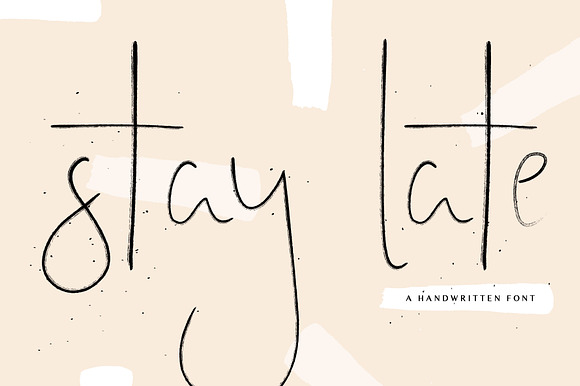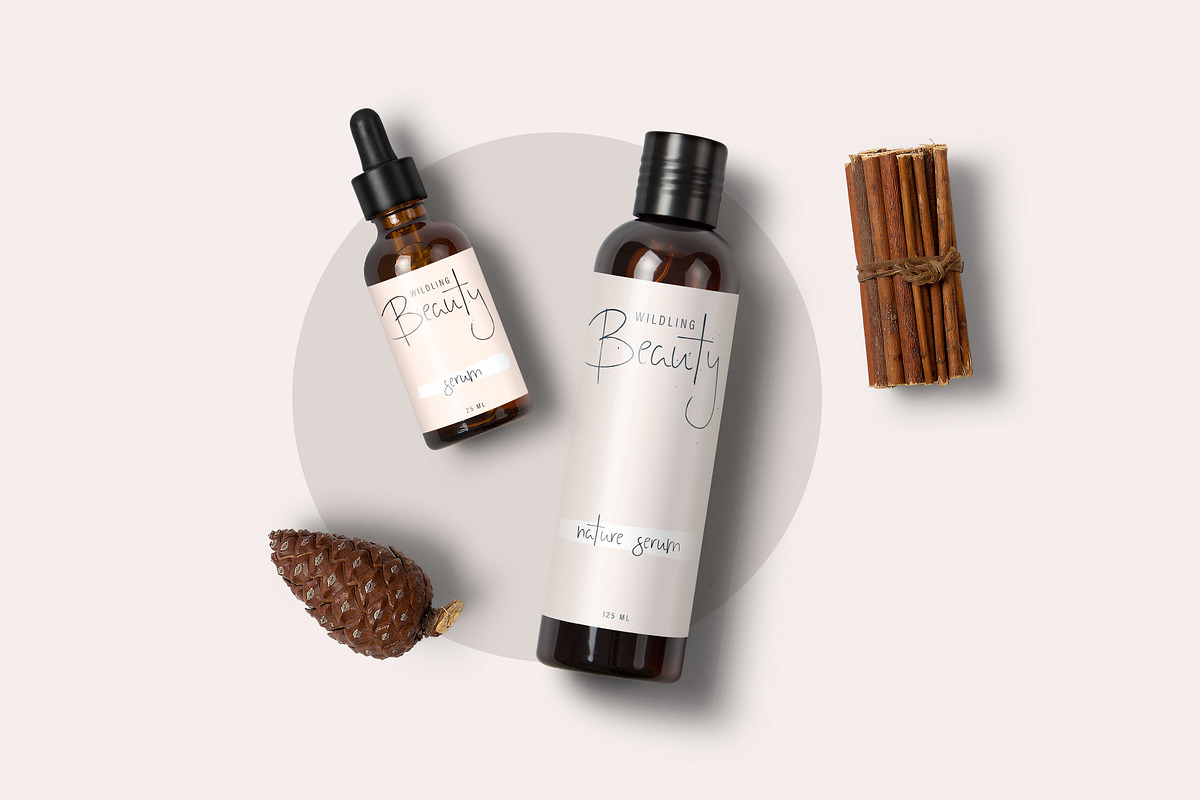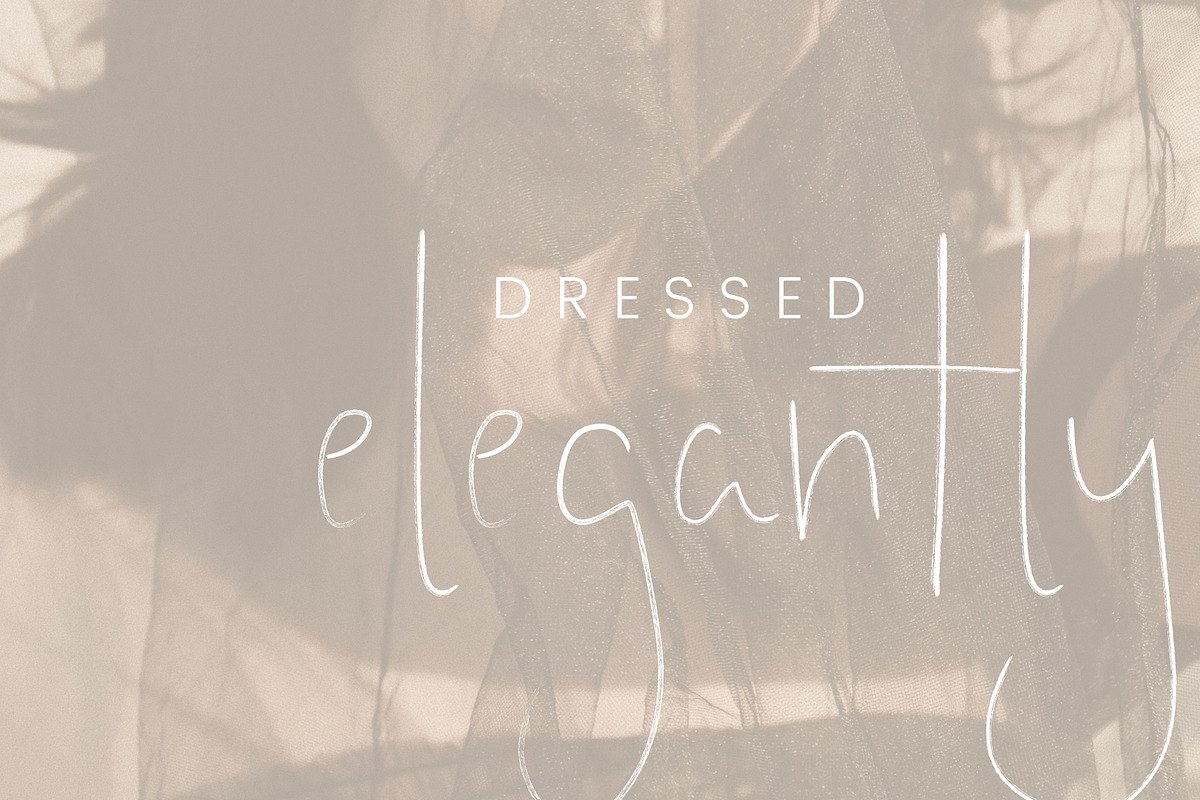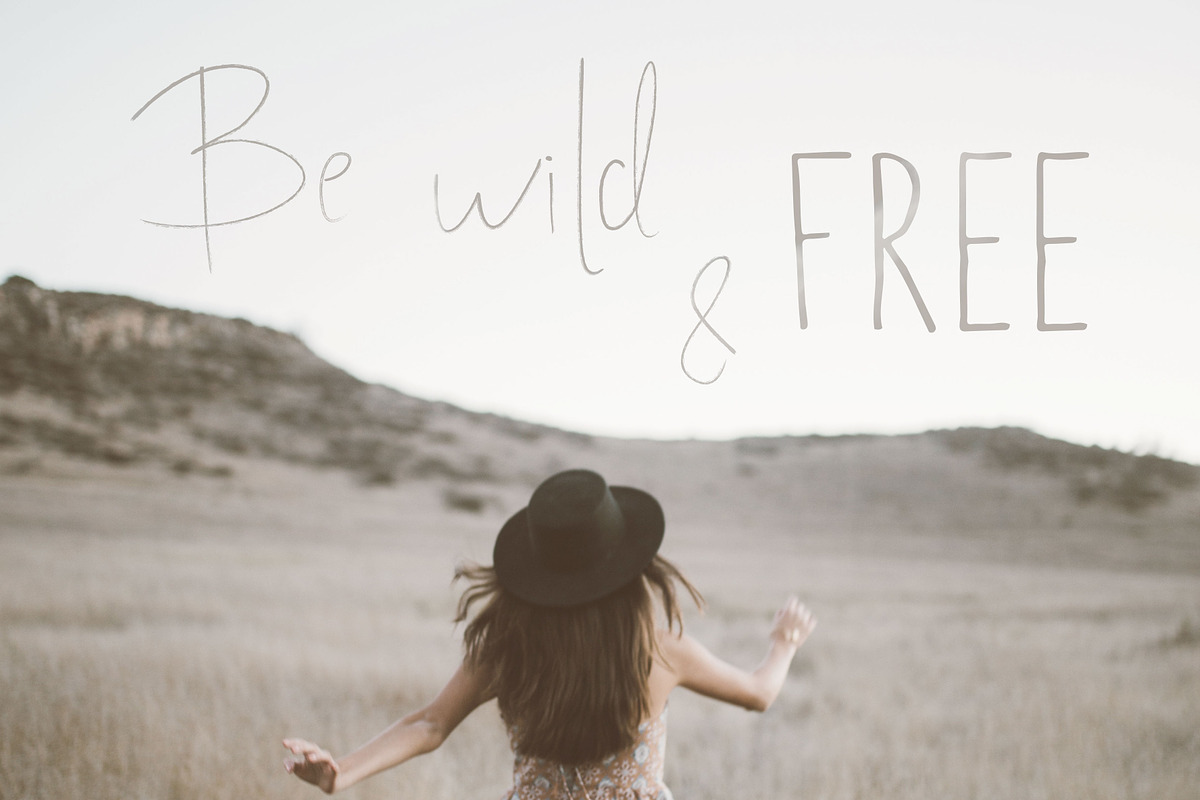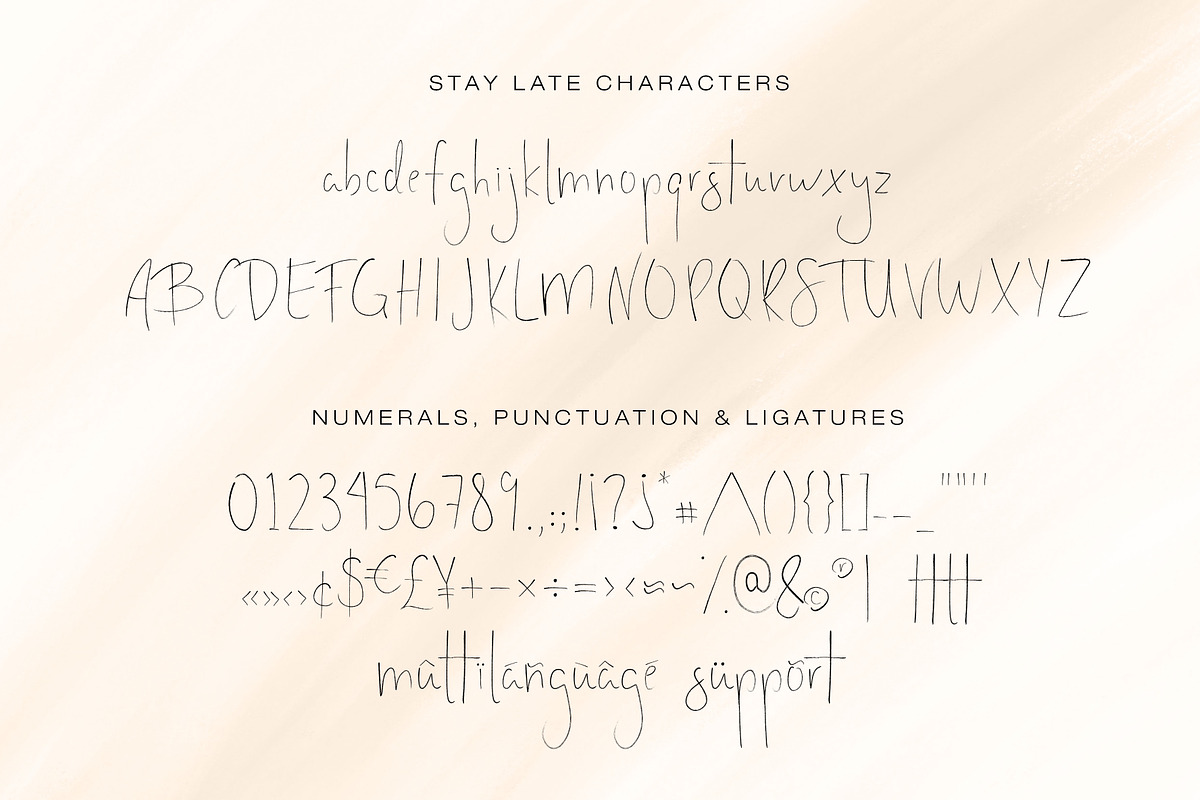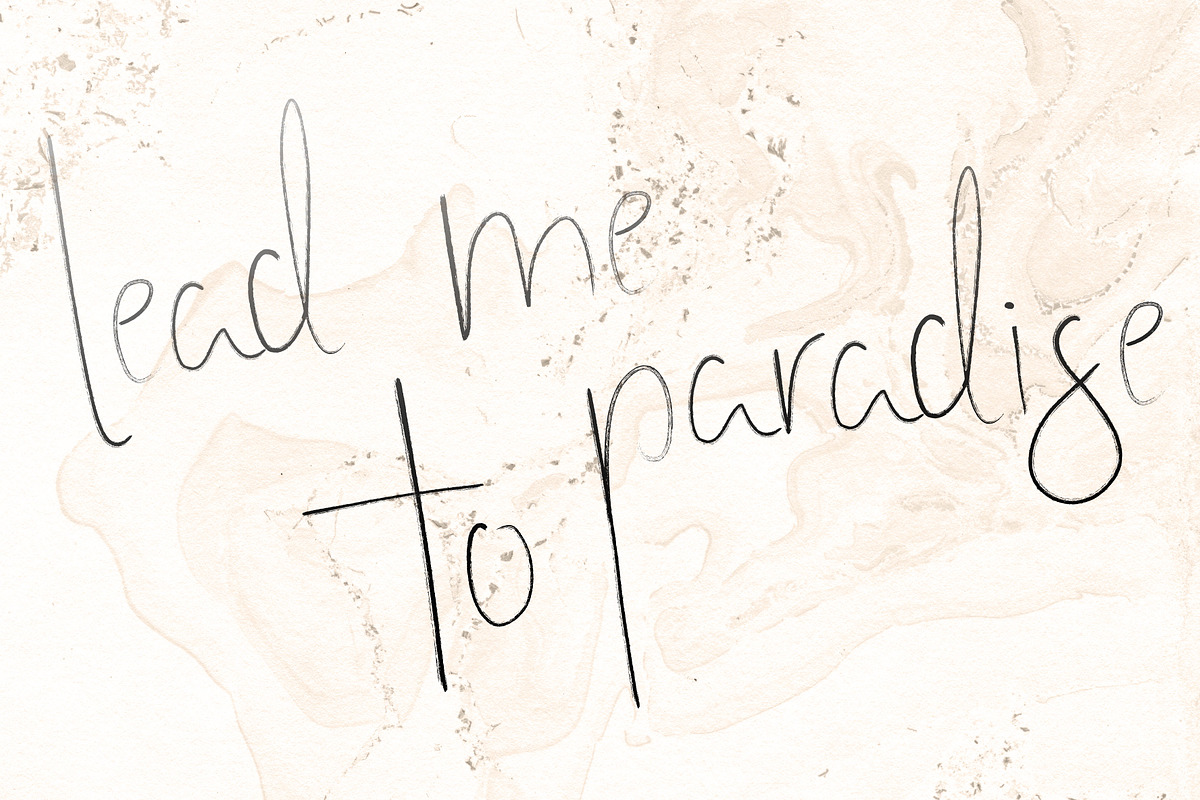
Stay Late | A Signature Font
Stay Late: a signature handwritten font. This dreamy font with its texture and elegant lines will add a personalised look to your work.
Stay Late | A Signature Font by ChristineTeixeira fits naturally into Branding, posters, packaging, typography.